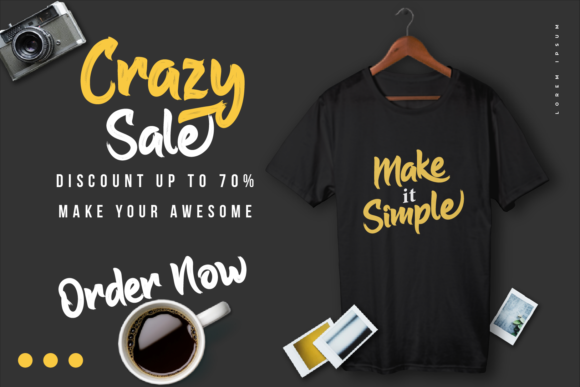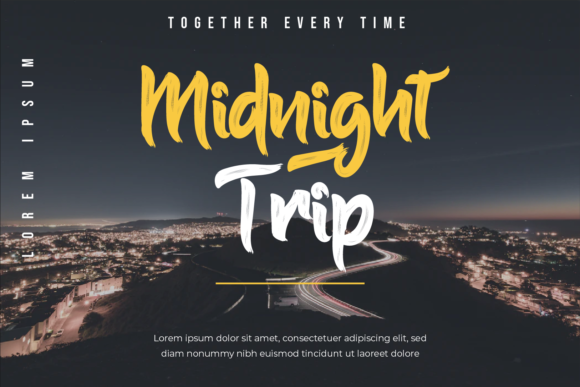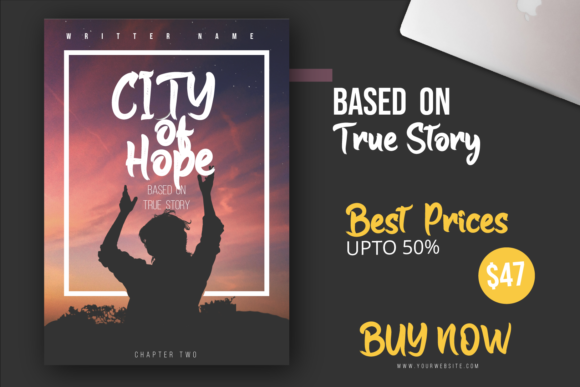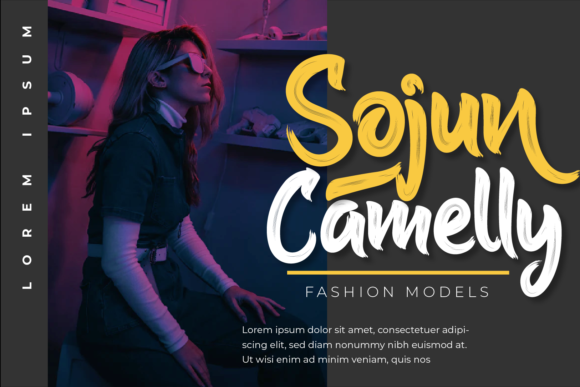
Introduction to Kulyno Font
Kulyno is a thick lettered, flowing display font, created with the help of a beautiful brush pen.
This dazzling display font will turn any creative idea into a standout .
Key Features of Kulyno Font